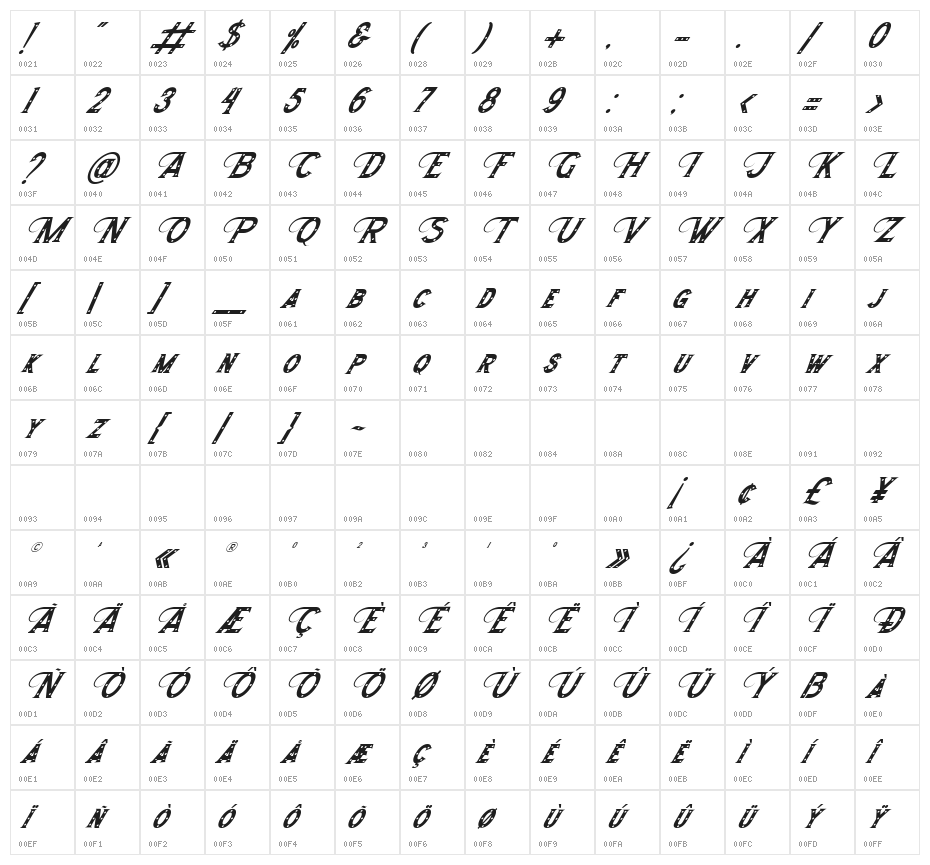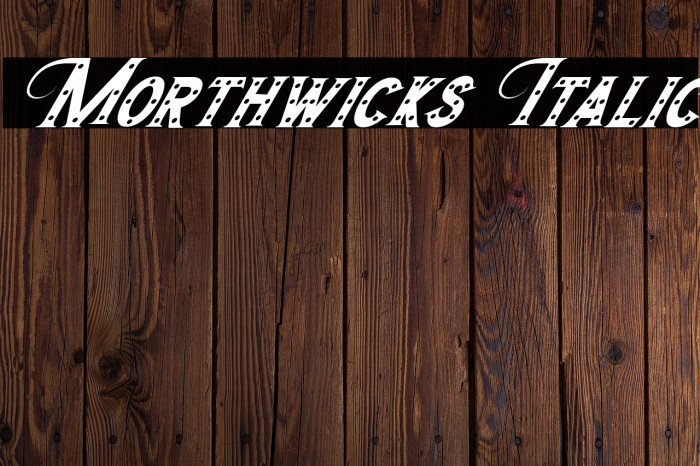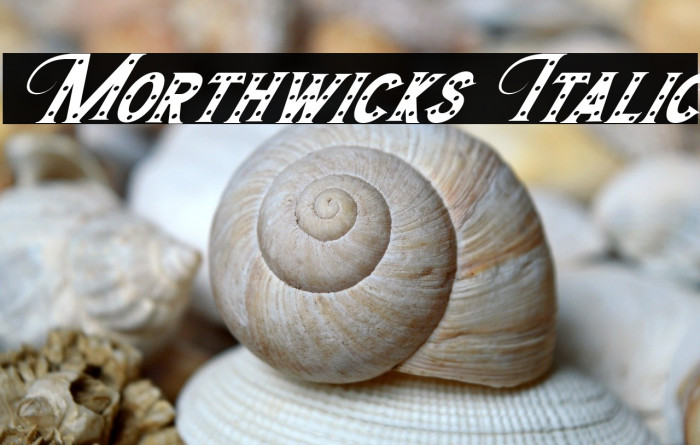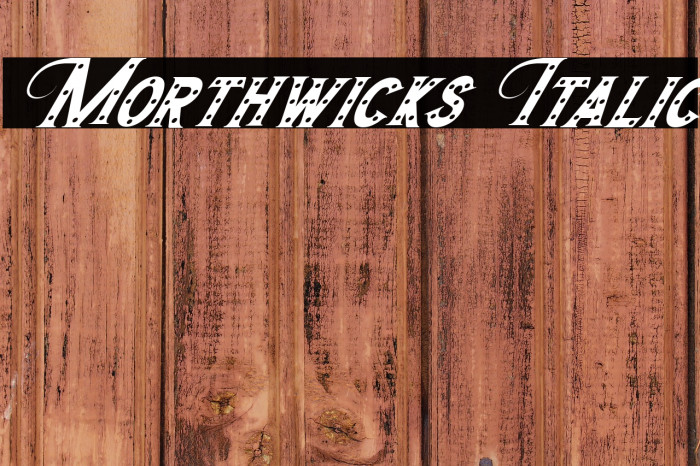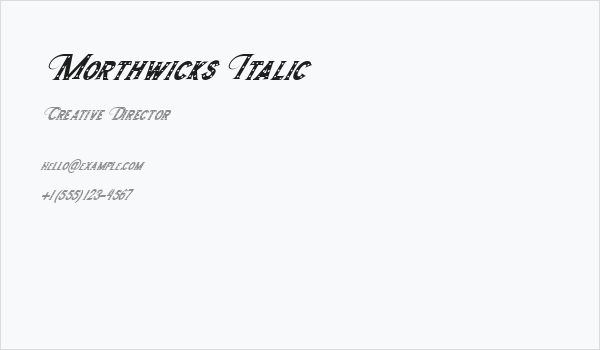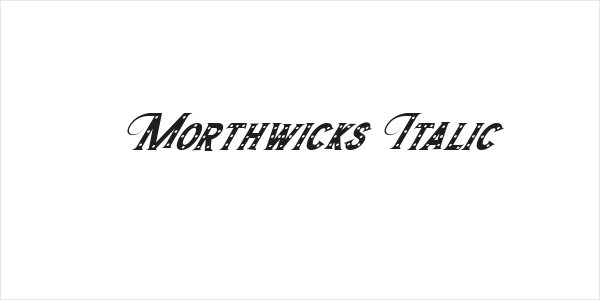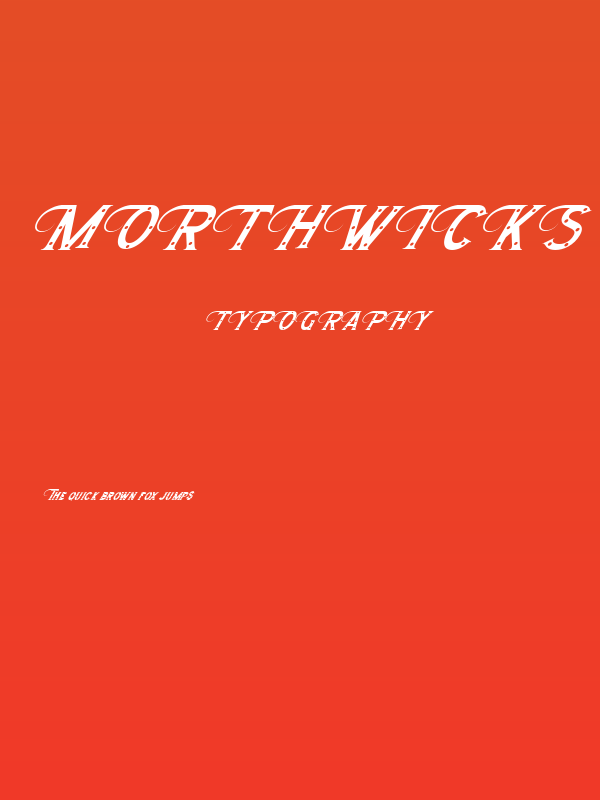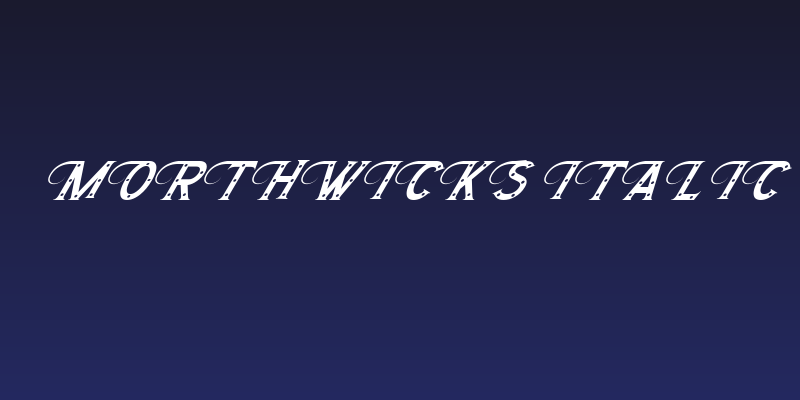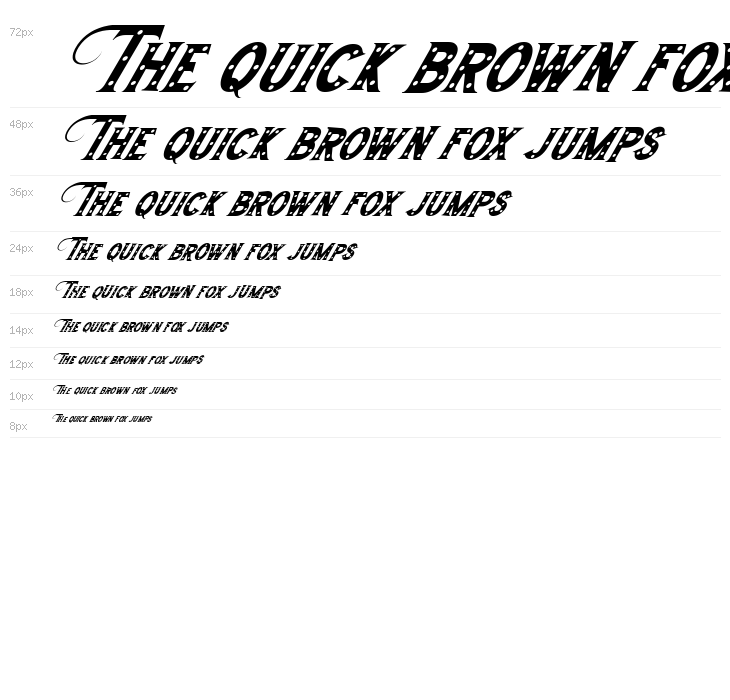
Morthwicks Italic Font
Morthwicks Italic Description
This font features a bold and dynamic italic style with a decorative flair. Each character is adorned with unique cut-out patterns, adding a playful and eye-catching element to the design. The strokes are thick and consistent, providing a strong visual impact. The italic slant gives it a sense of movement and elegance, making it suitable for creative and bold design projects. The uppercase and lowercase letters maintain a cohesive style, while the numbers and special characters are equally distinctive, ensuring versatility across various applications.
| Proposed Projects | Ideal for branding, posters, and creative headlines where a bold statement is needed. |